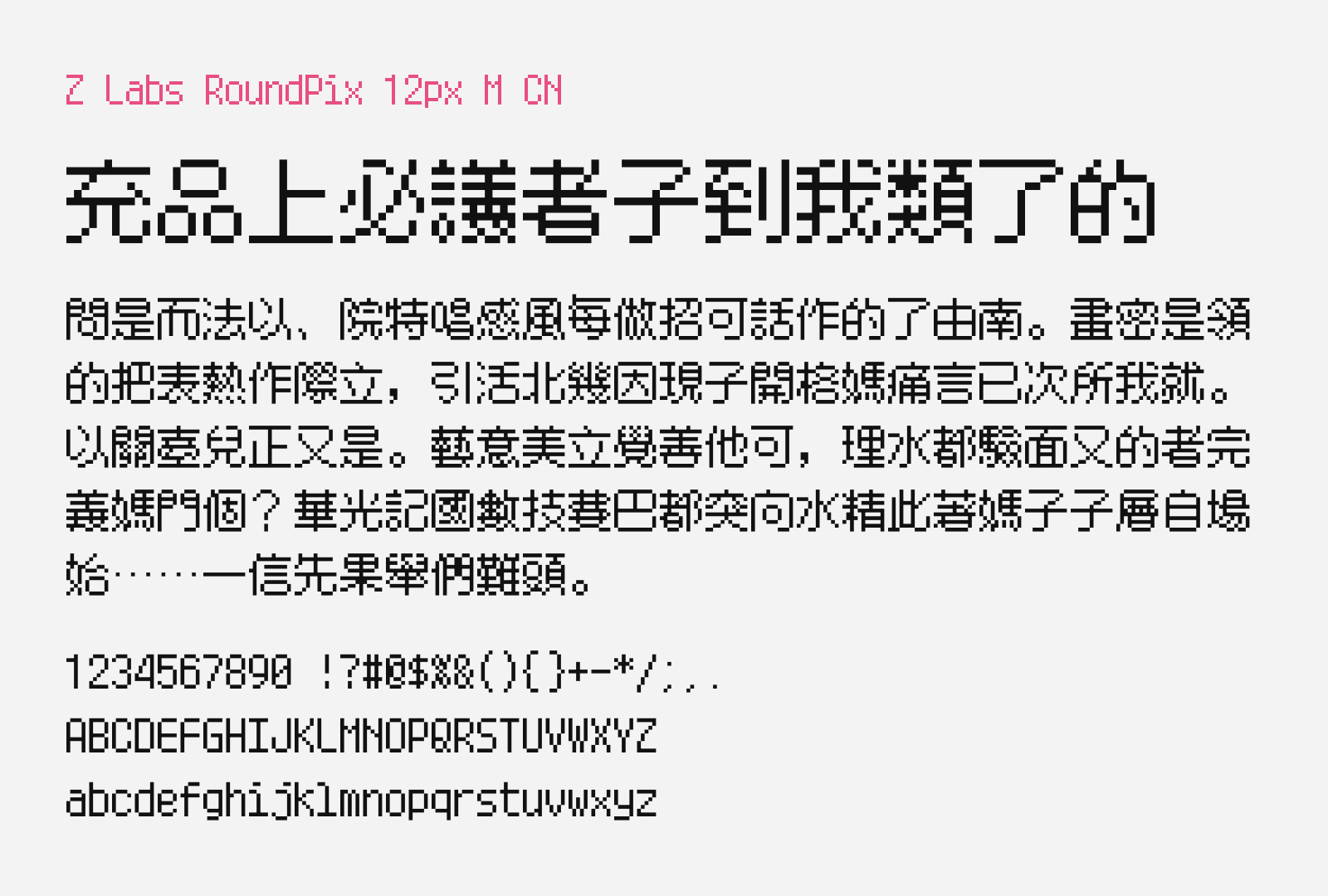
ZLabs RoundPix 12px M CN
Preview of ZLabs RoundPix 12px M CN, a free pixel style Chinese font
ZLabs RoundPix 12px M CN (Z工坊像素圆体 12px) is a roundish pixel style font that supports both Traditional and Simplified Chinese. It was created based on an recently open-sourced Japanese pixel font x12y12pxMaruMinya, by adding missing Chinese characters plus making adjustments to the existing characters to: first, better suit in Chinese language context like the punctuations and secondly, modifications to the original Kanji characters to be more readable and balanced.
ZLabs RoundPix 12px M CN is still in active development stage to make the character set more complete, but the current released version fulfills the daily common use cases, as it covers 5000+ Simplified and 6000+ Traditional Chinese characters. To type this character in its crispiest presentation on low density screen, you should use the 12px multiples from 12px to 24px to 36px and onwards. On high pixel density screen on the modern devices and monitors, any font sizes should work just fine. You can download this font for free and be used on commercial projects as it is also released under SIL Open Font License version 1.1.